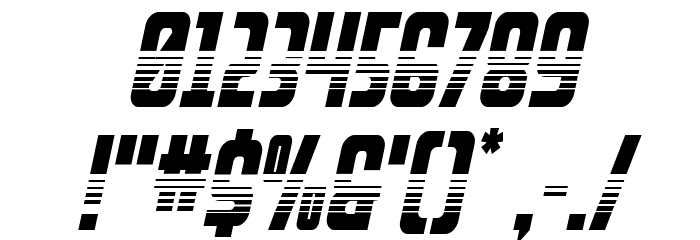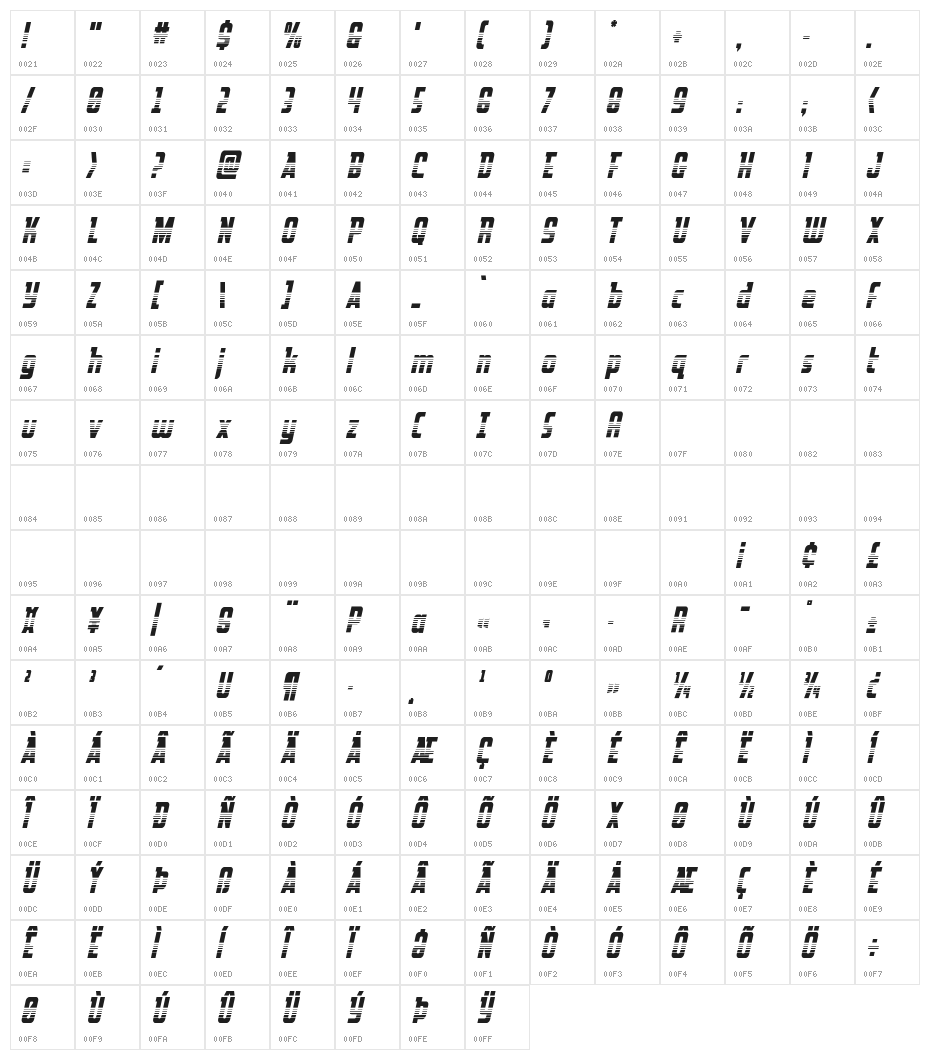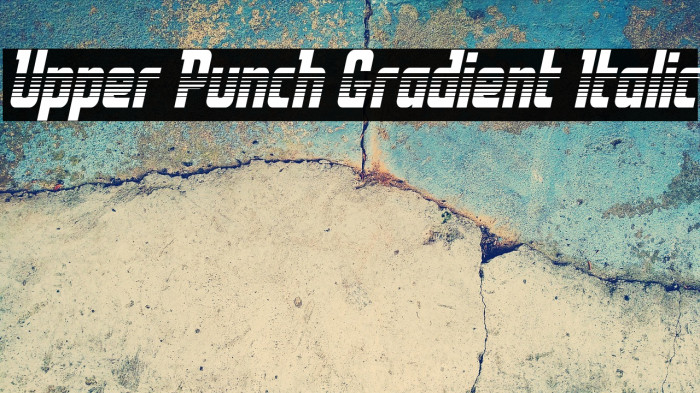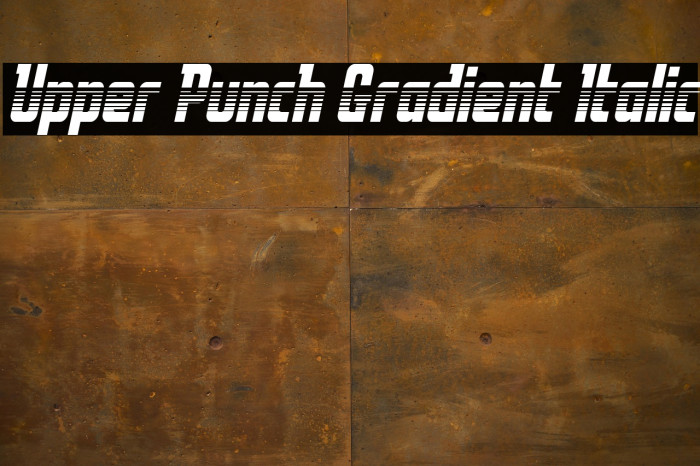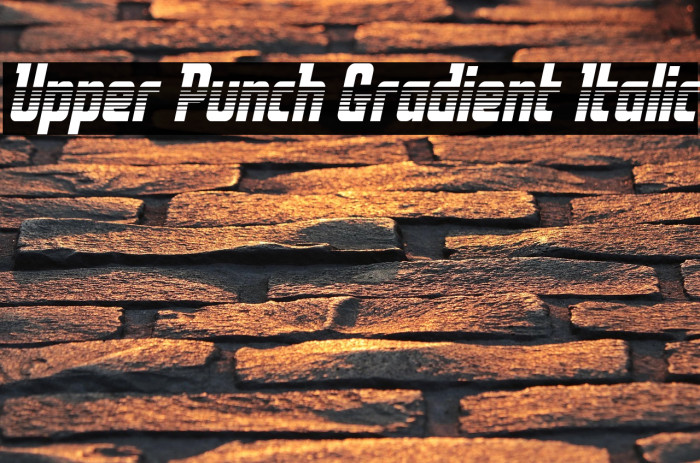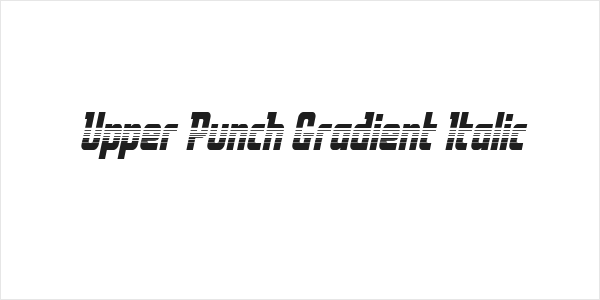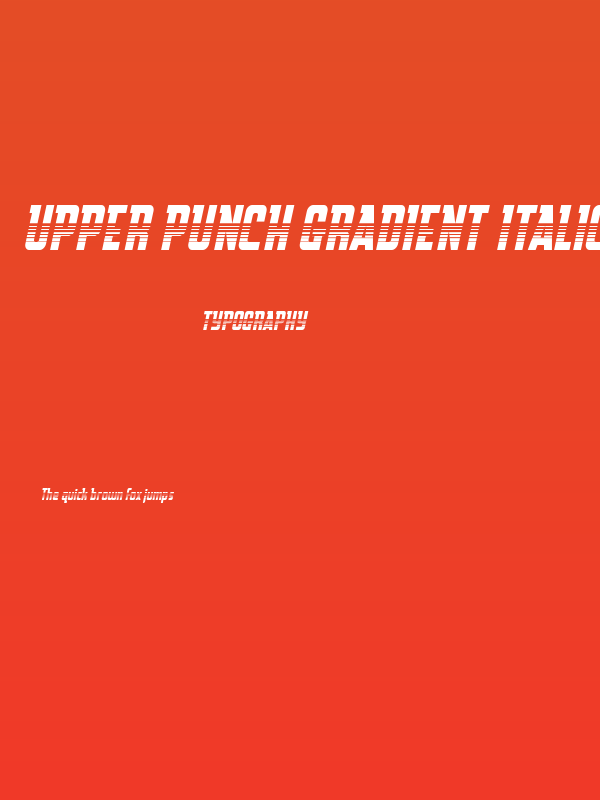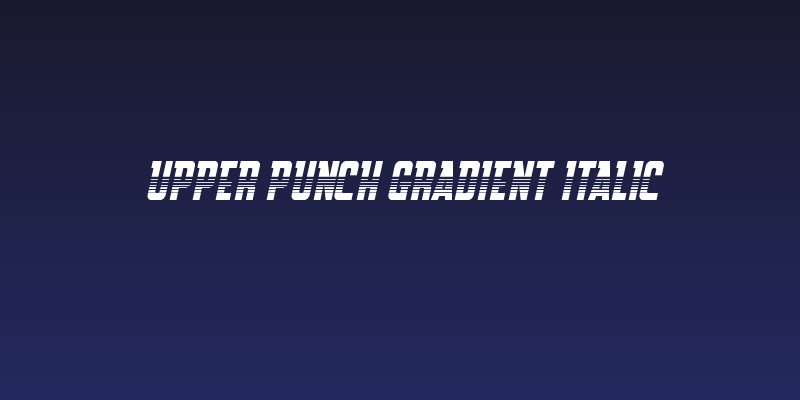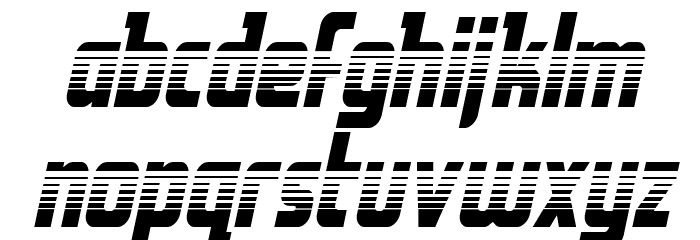
Upper Punch Gradient Italic Font
Upper Punch Gradient Italic Description
This font features a bold and dynamic design with a distinctive gradient effect across each character, creating a sense of movement and energy. The italicized style adds a forward-leaning emphasis, enhancing its modern and futuristic appeal. The uppercase and lowercase letters, along with numbers and special characters, maintain a consistent aesthetic with sharp edges and a slightly condensed form. The gradient lines within each character add depth and visual interest, making it stand out in any design context.
| Proposed Projects | Ideal for sports branding, futuristic designs, tech-related projects, and dynamic advertising campaigns. |